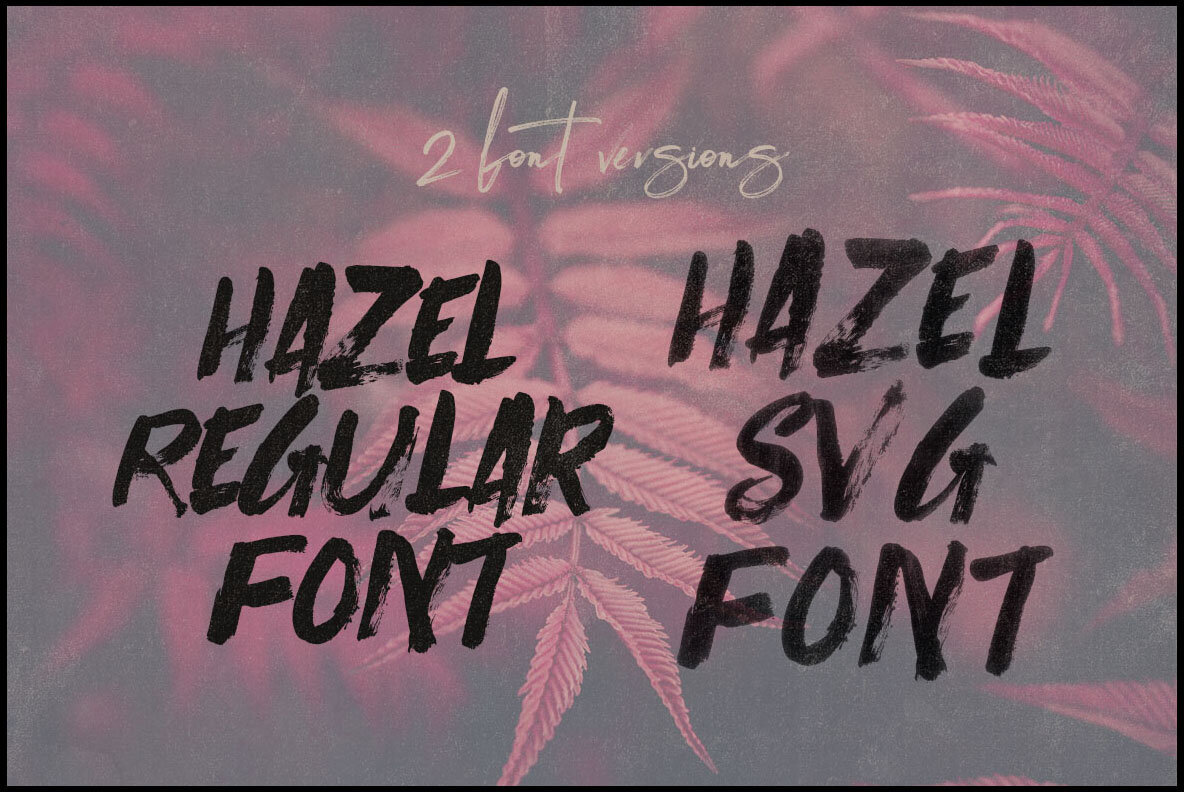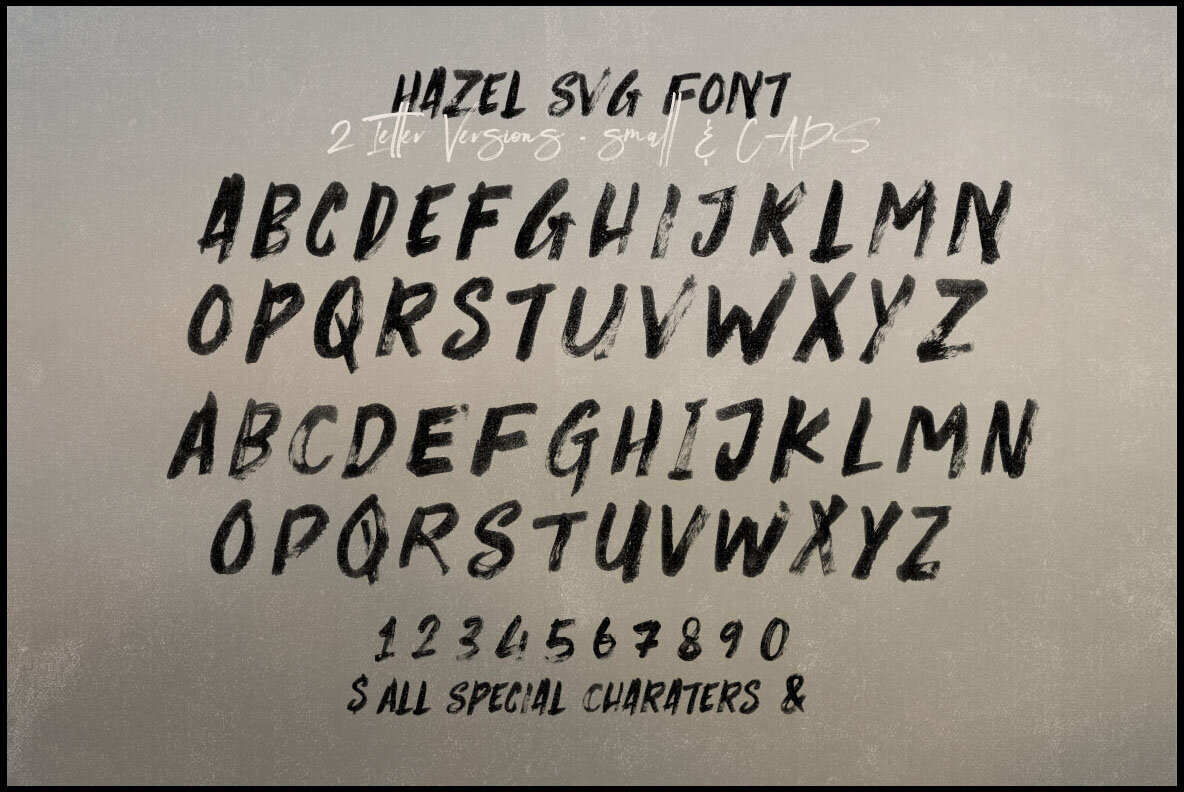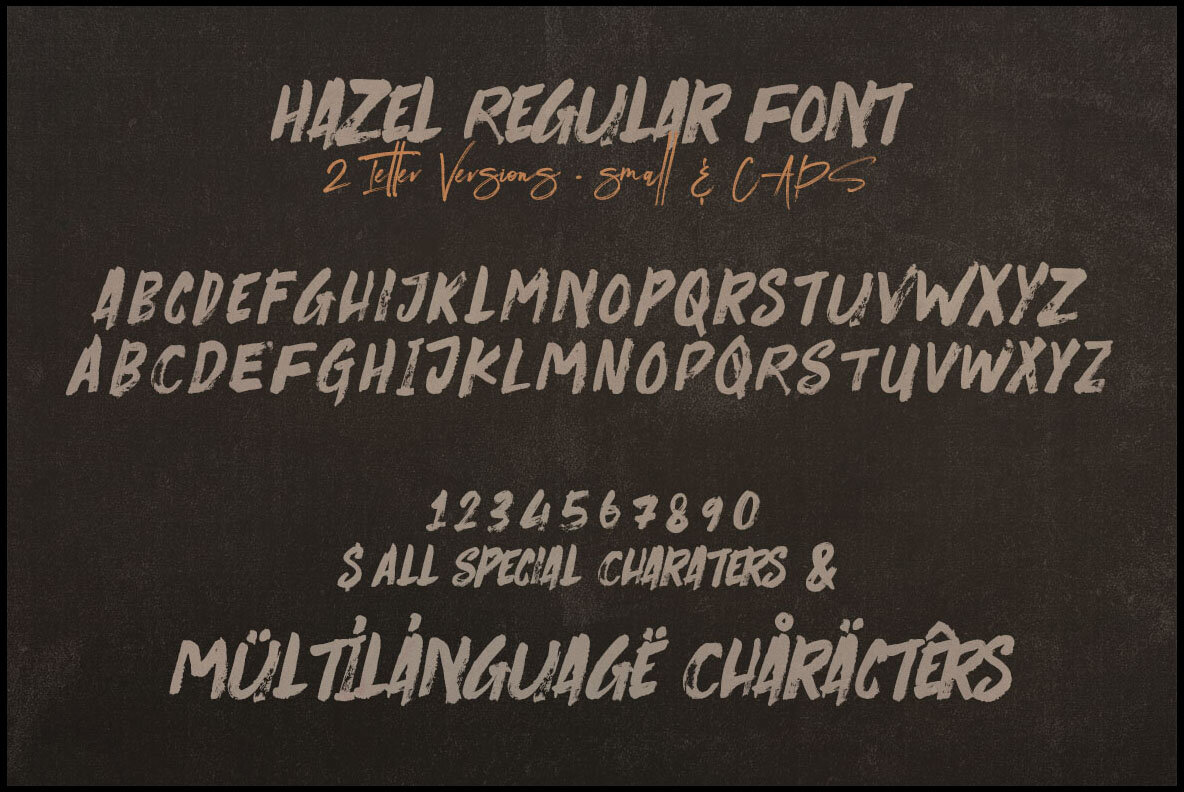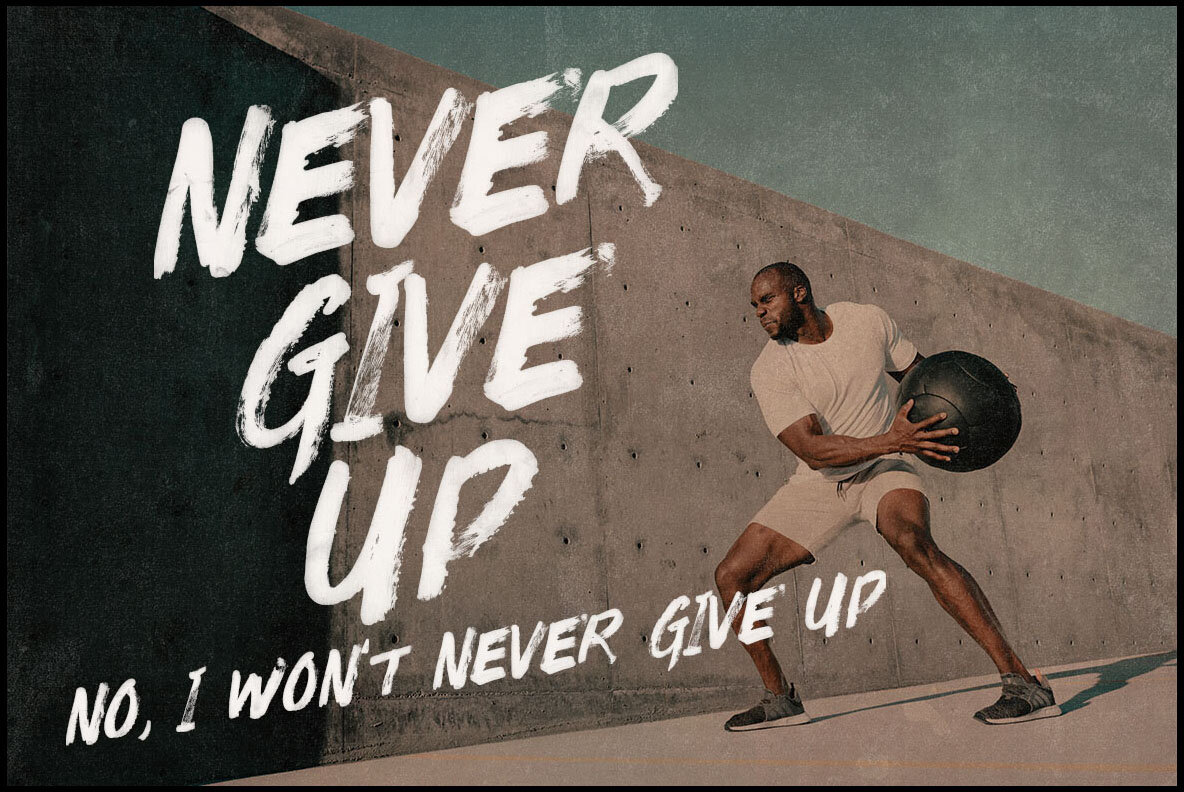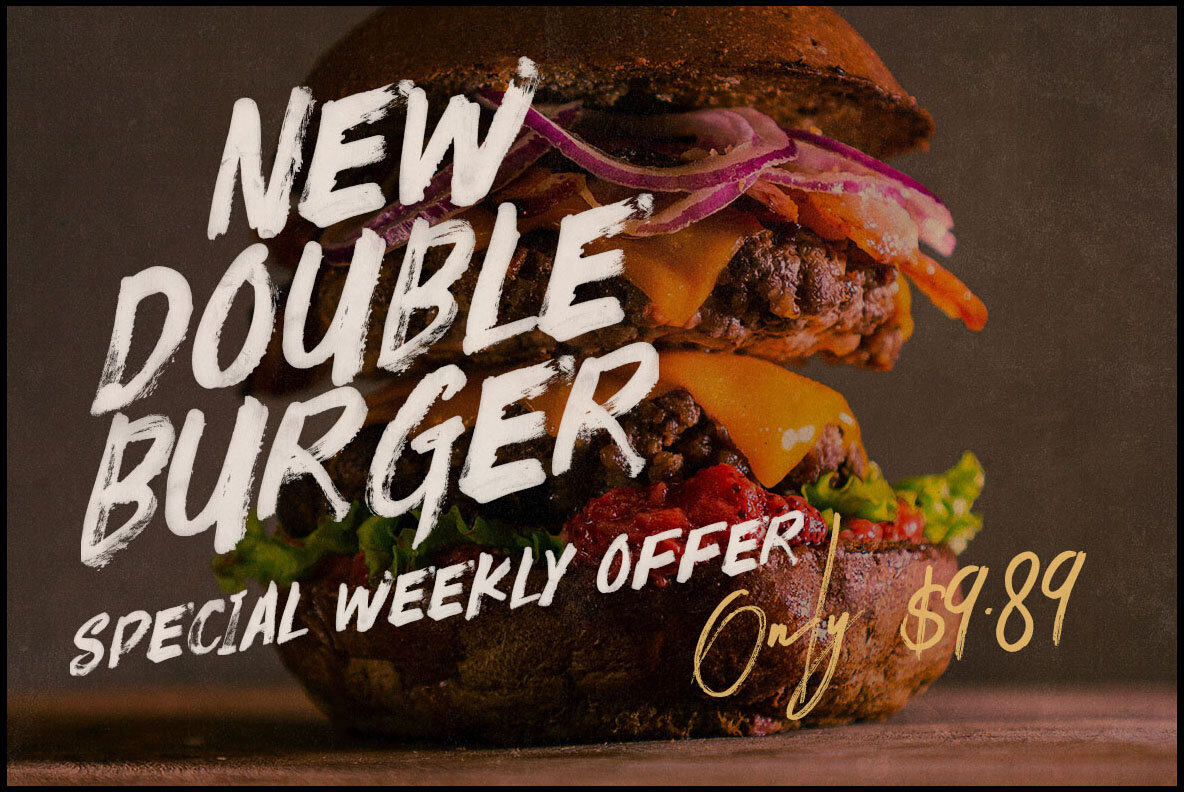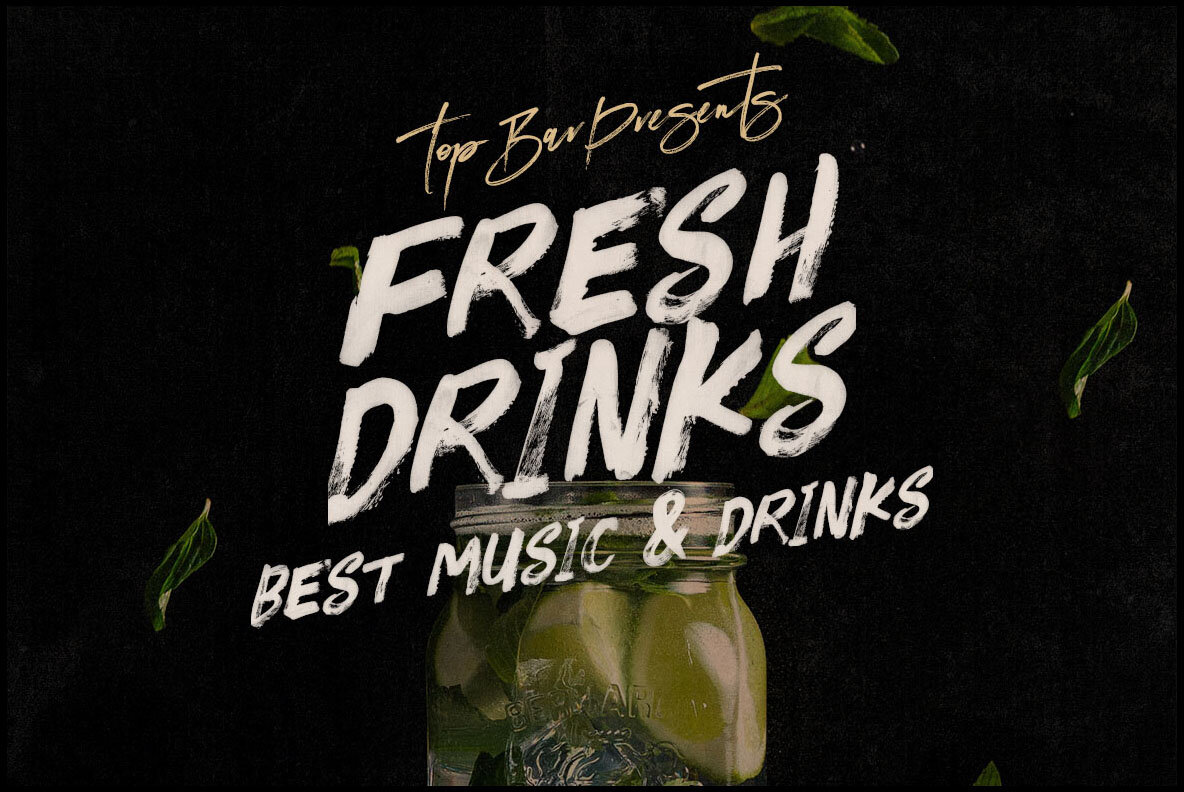
Hazel Brush Font
Hazel Brush by Peter Olexa is a brush or grunge style sans display font that adds an artistic flair to your projects. It is ideal for grunge-themed or creative endeavors. This font utilizes color or SVG technology, ensuring compatibility with Photoshop CC 2017+, Illustrator CC 2018, and select Mac applications. For optimal appearance, follow these usage tips:Hazel Brush: Grunge Style Sans Display Font